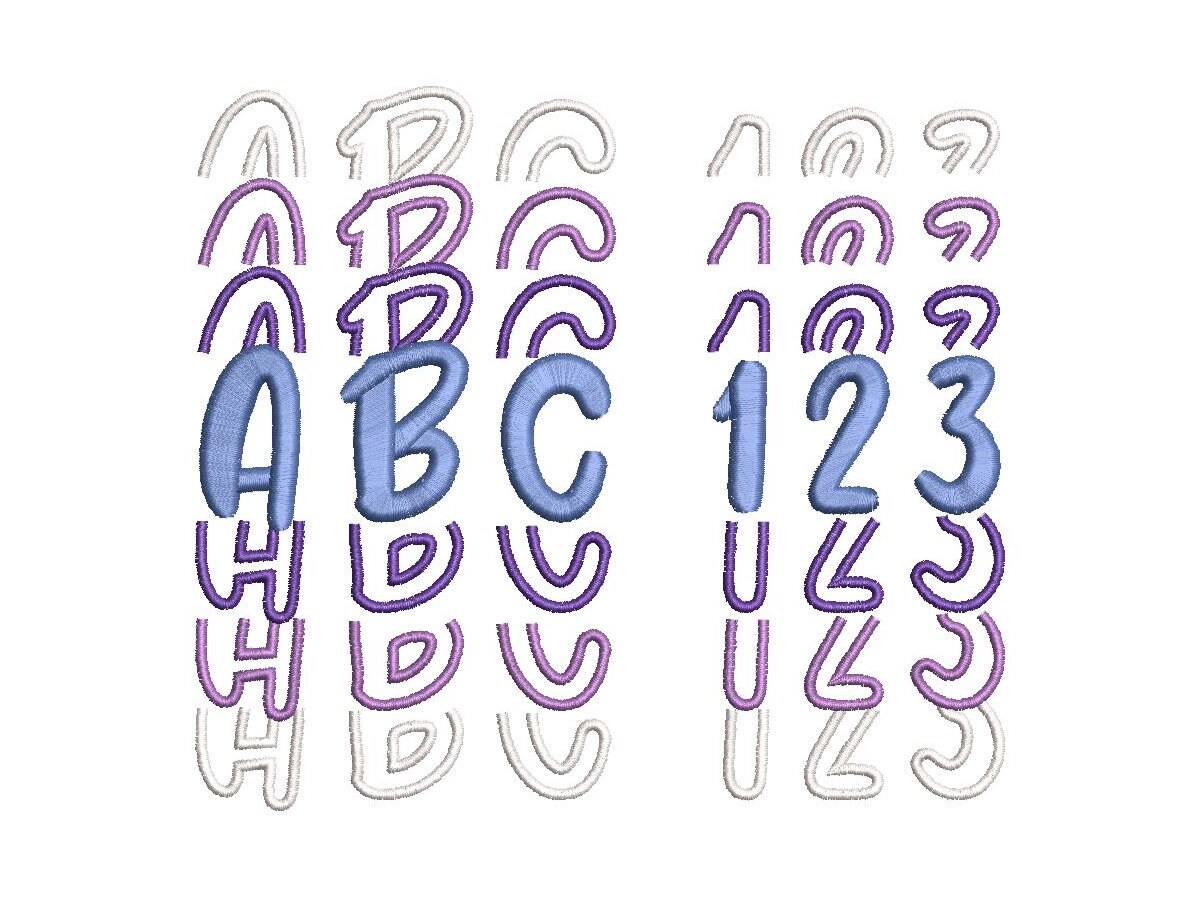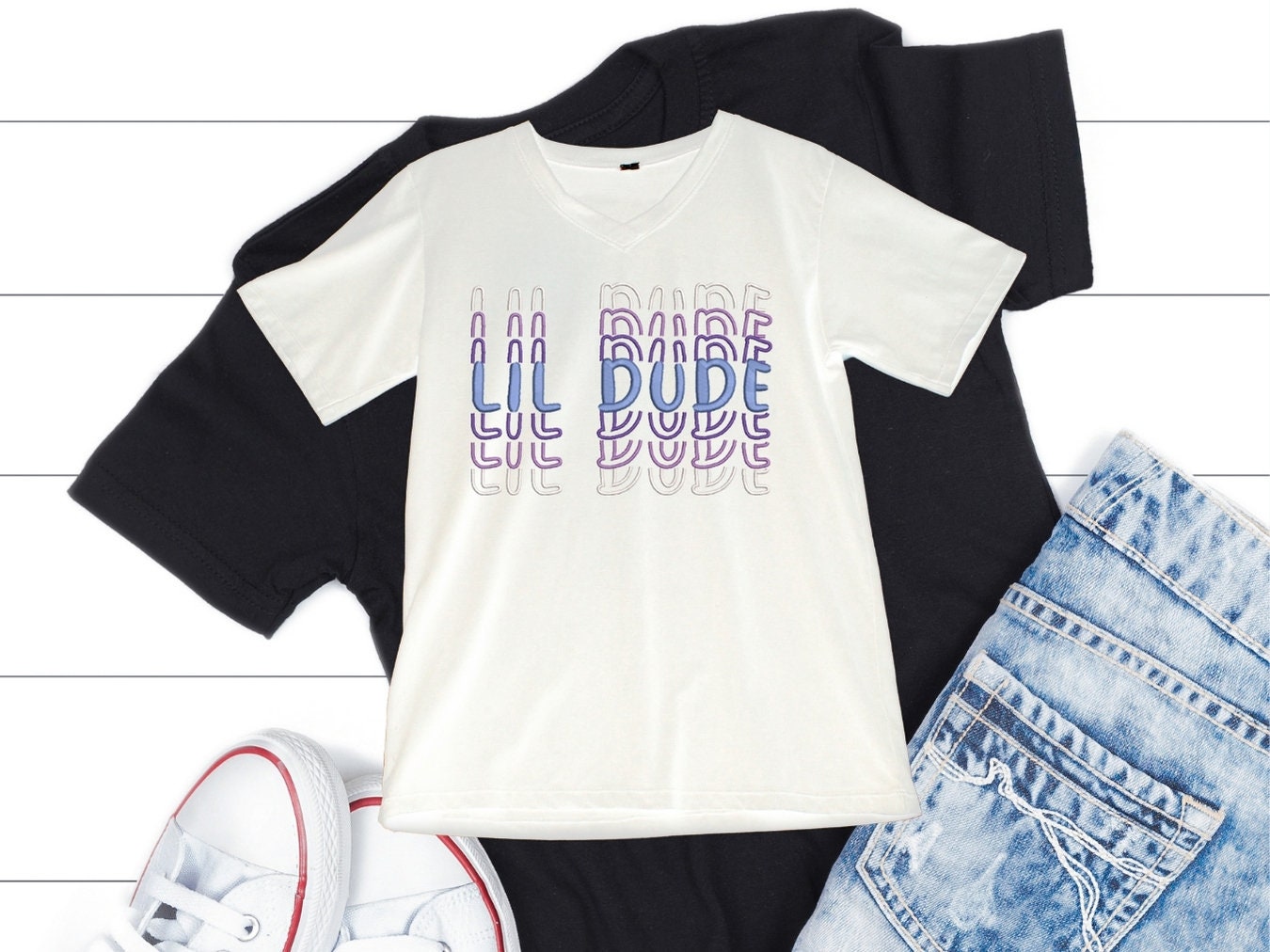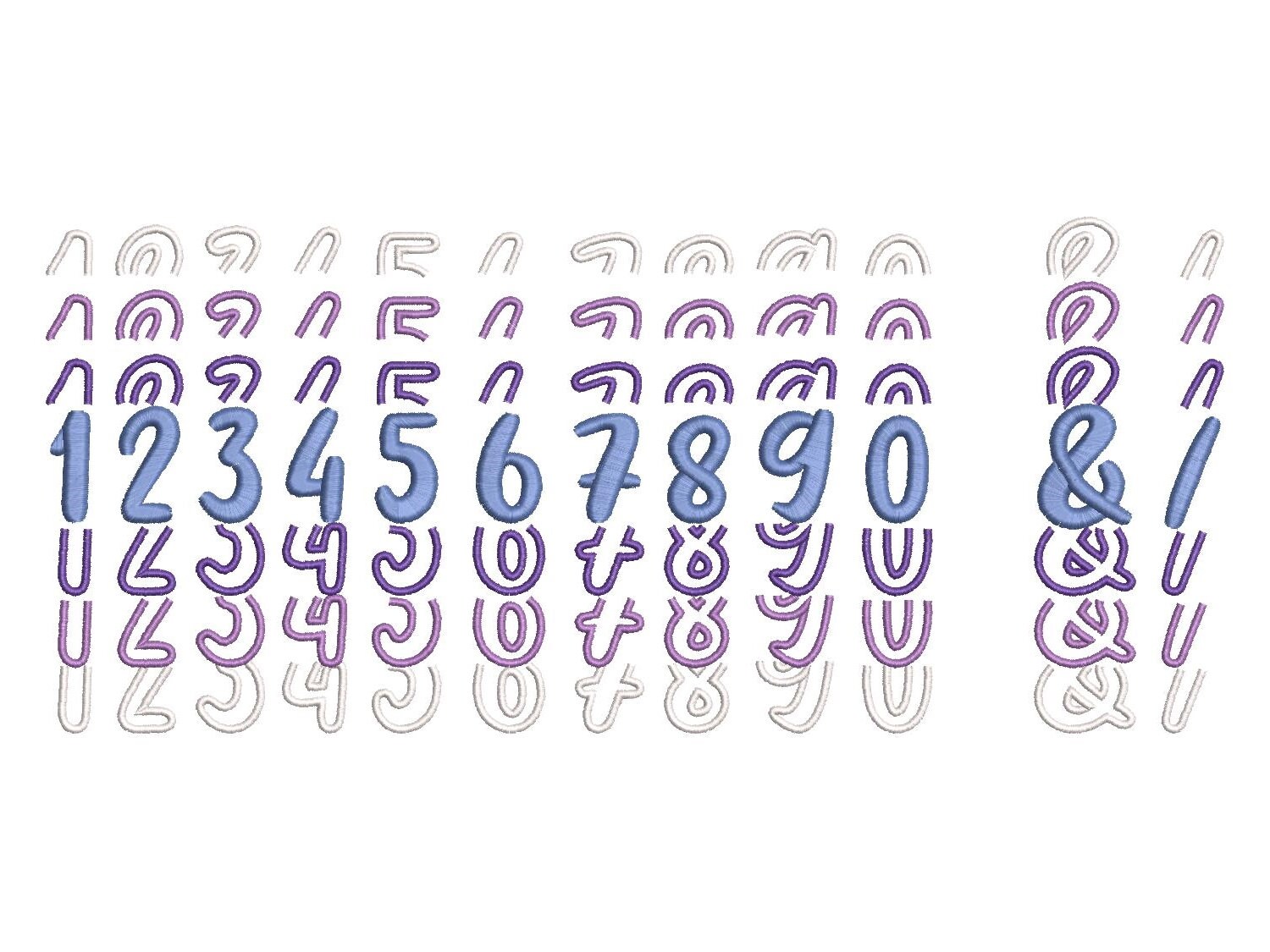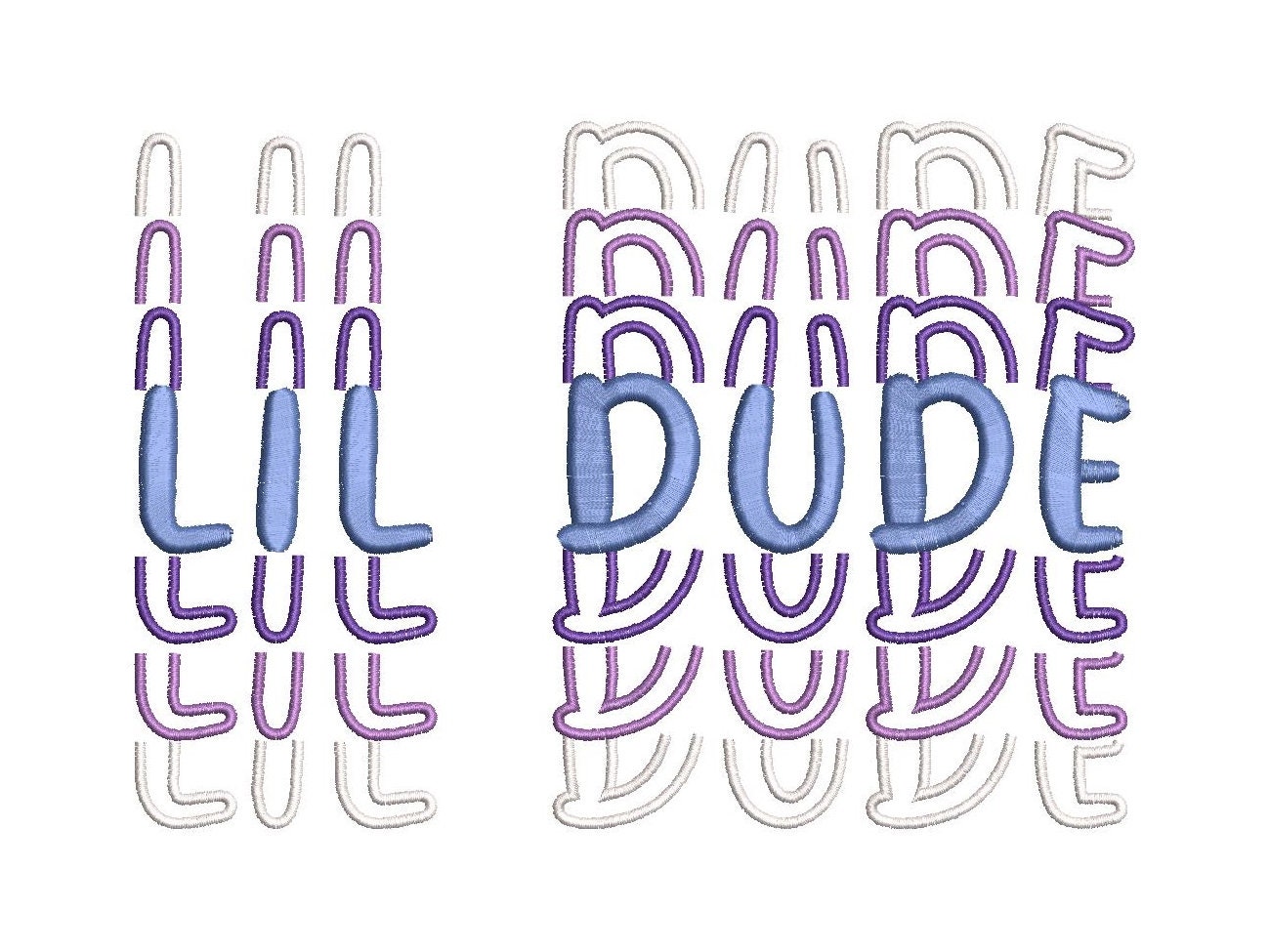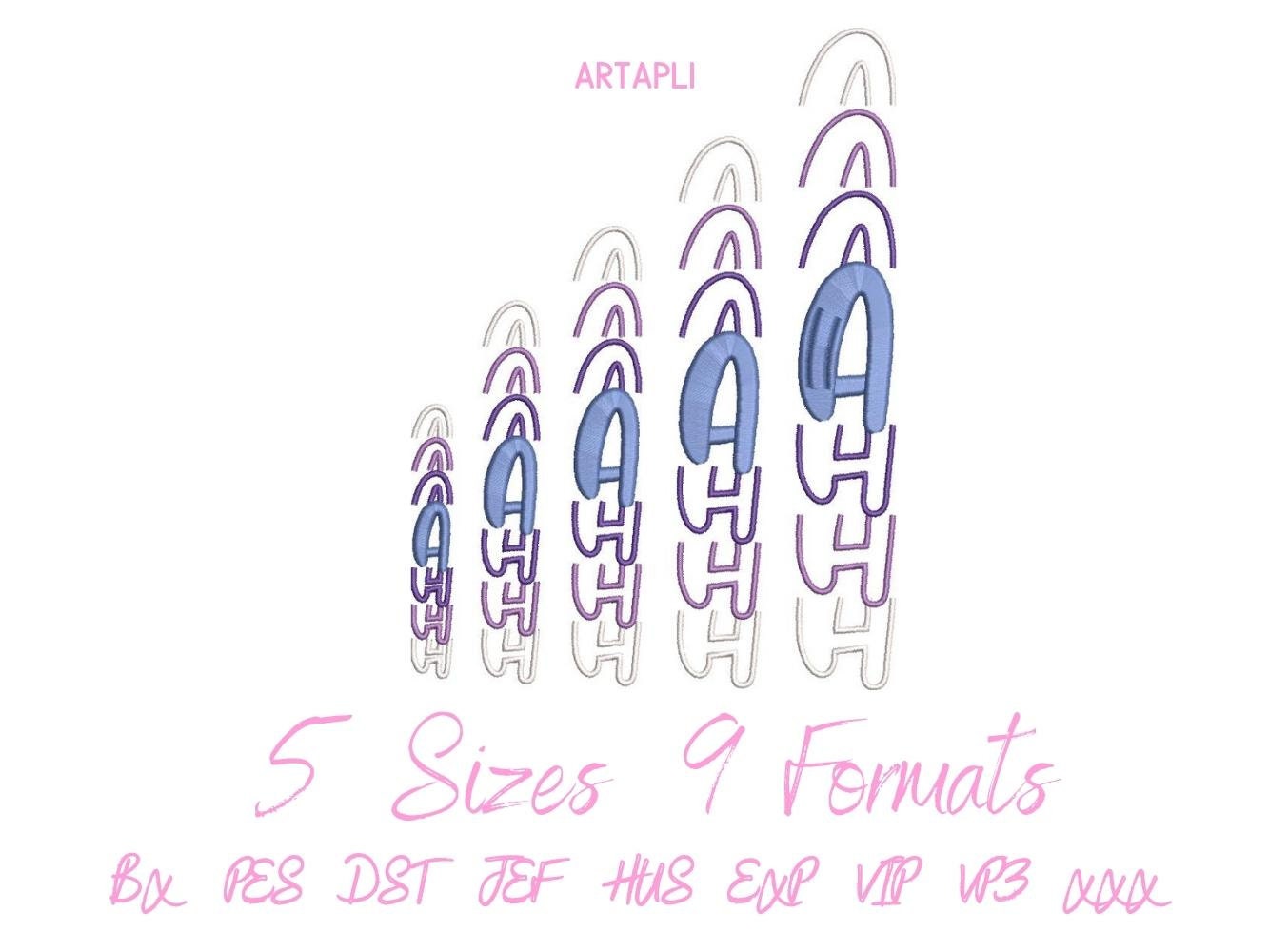
Stacked Font, BX included! Satin stitch alphabet letters kids trend Font fashion outfit tshirt machine embroidery designs in assorted sizes
The whole alphabet:
uppercase, numbers and special marks / &